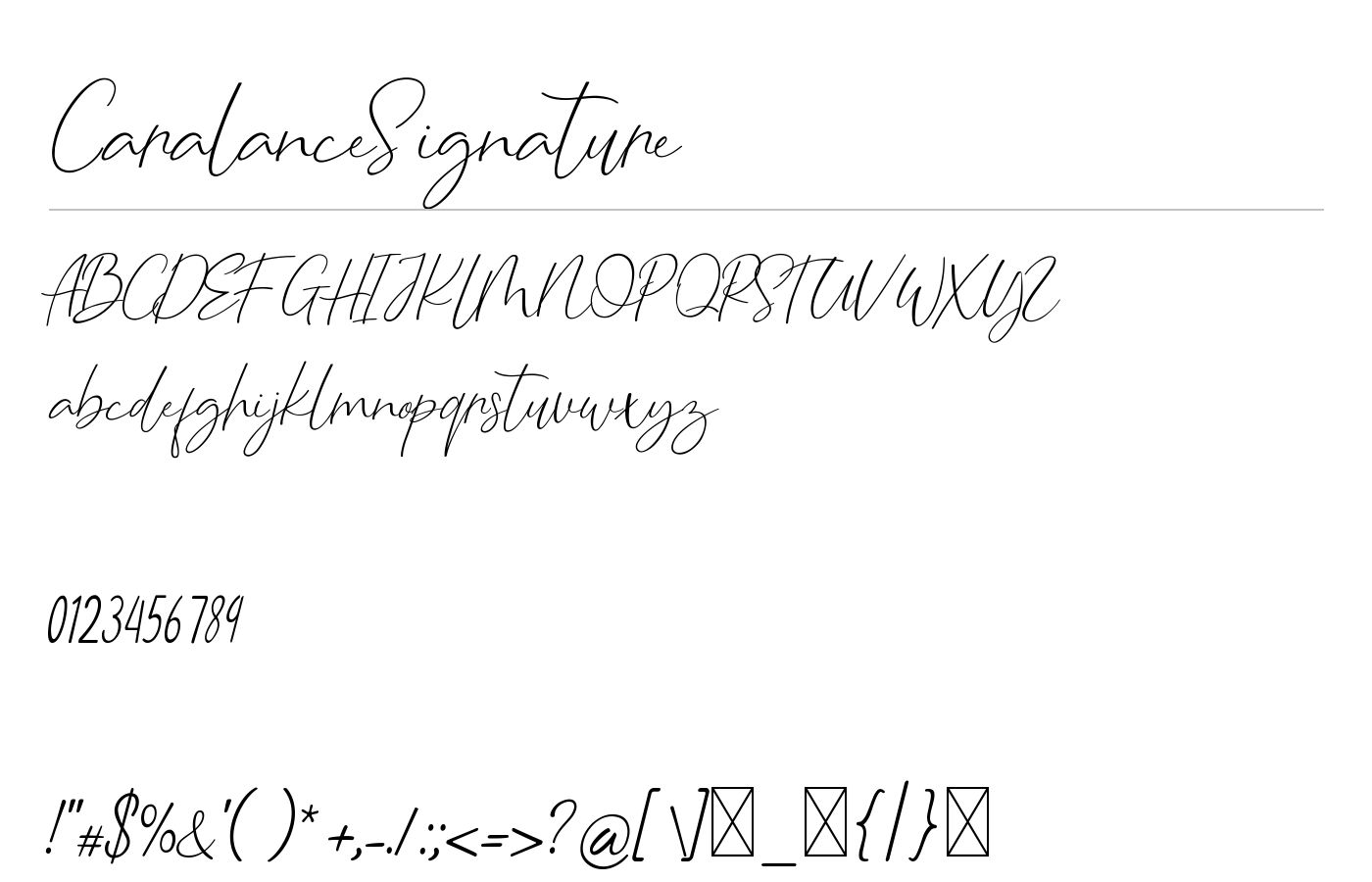
CaralanceSignature is a delicate and elegant handwritten script font that mimics natural, fluid penmanship with its slender, flowing strokes and graceful curves. Its light weight and airy spacing lend a refined, personal touch, making it ideal for branding, invitations, and stylish logos where a sophisticated yet approachable feel is desired. This font works beautifully in projects that seek to convey elegance and authenticity with a modern, artistic flair.
CaralanceSignature Font